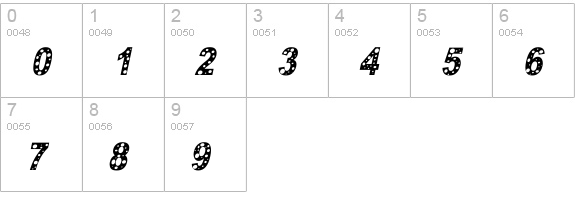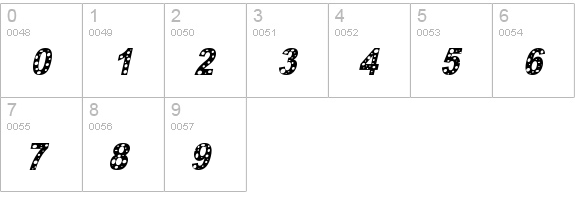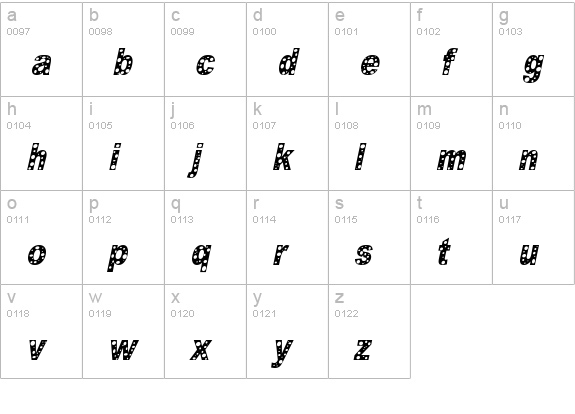
HOLE 2 cursive Font Details
HOLE 2 cursive font is a stunning and elegant typeface that adds a touch of sophistication to any design project. With its flowing and graceful curves, this font exudes beauty and charm. Whether you're working on wedding invitations, branding materials, or any other creative endeavor, HOLE 2 cursive font will give your work a distinct and refined look. Best of all, HOLE 2 cursive font is completely free to download at FontsMarket.com. So you can easily add this gorgeous typeface to your collection without breaking the bank. Don't miss out on the opportunity to enhance your designs with the beauty of HOLE 2 cursive font - download it today and elevate your projects to the next level.